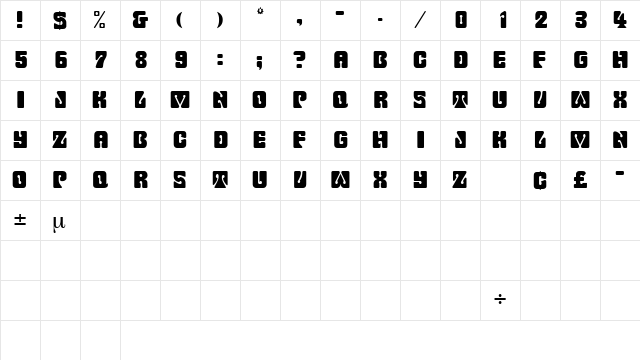
WowserDisplayCapsSSK Regular
Design Context for WowserDisplayCapsSSK Typeface
WowserDisplayCapsSSK is built around its visual character rather than neutral utility — its distinctive forms are designed to make an impression at display sizes.
Font Pairing: Pair with a clean neutral sans-serif for body copy to let WowserDisplayCapsSSK's character lead without overwhelming the composition.
Pro Tip: Treat WowserDisplayCapsSSK as the centrepiece of your typographic hierarchy. One strong heading set in a decorative face can carry an entire layout.